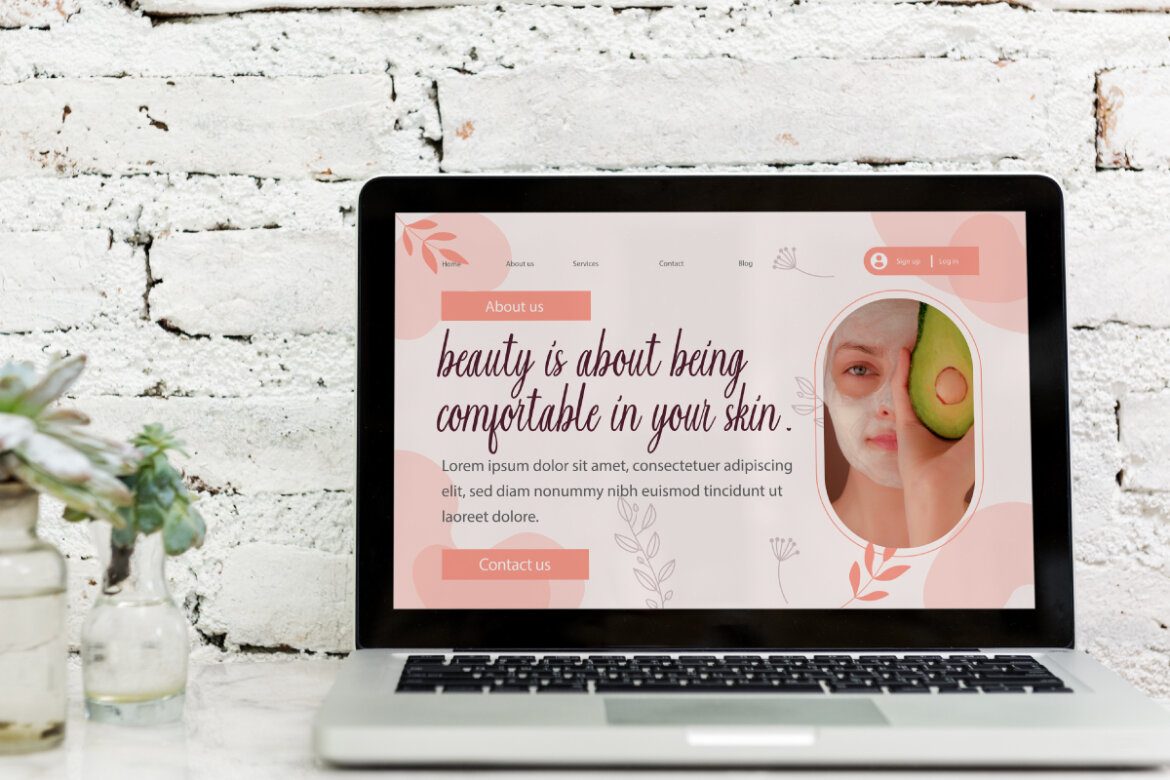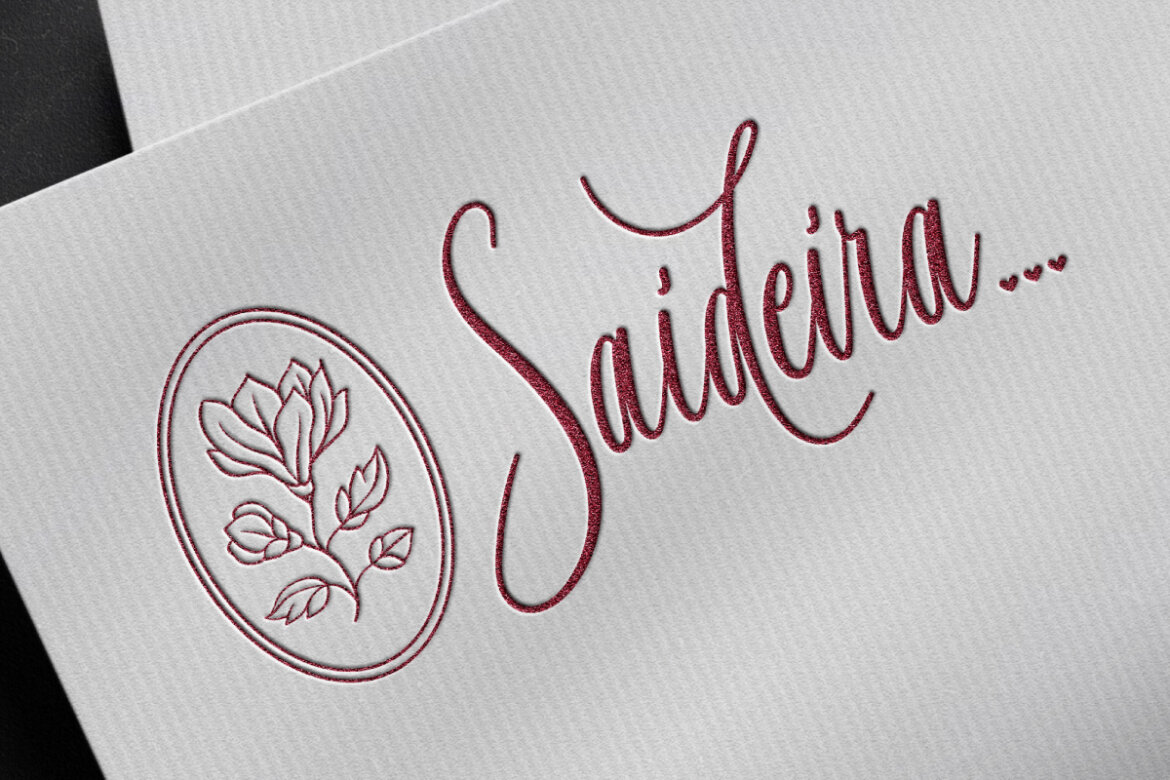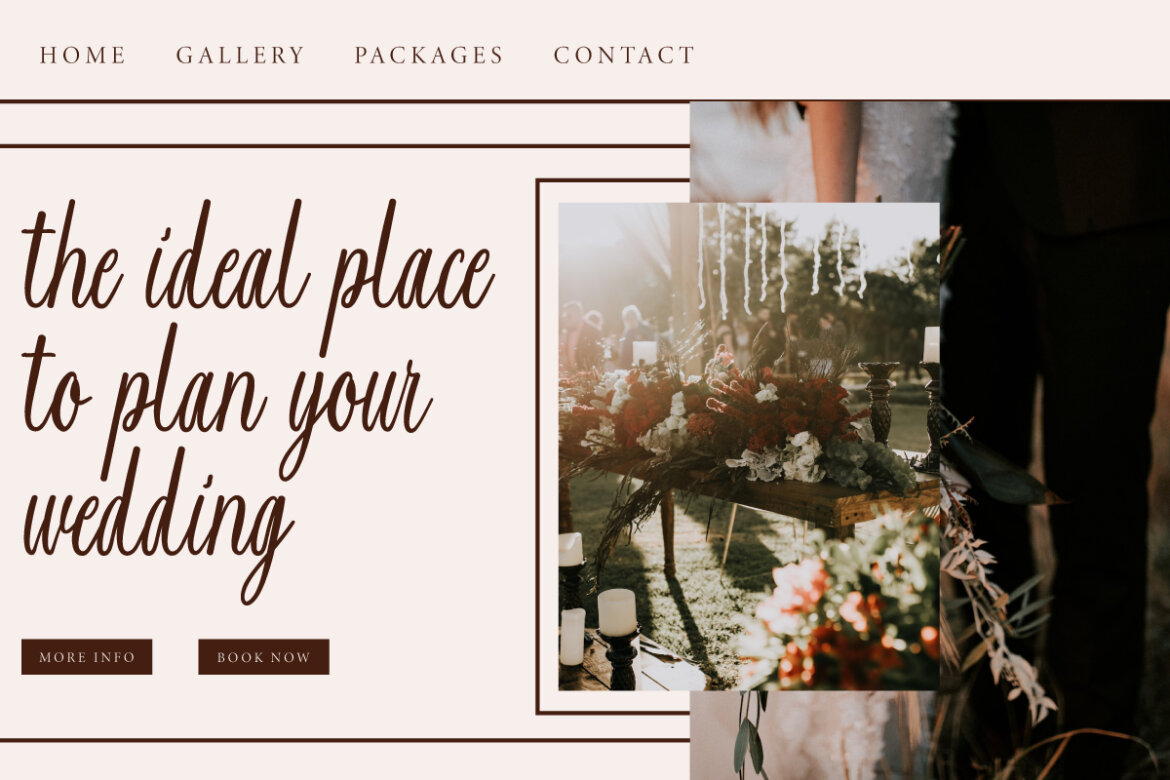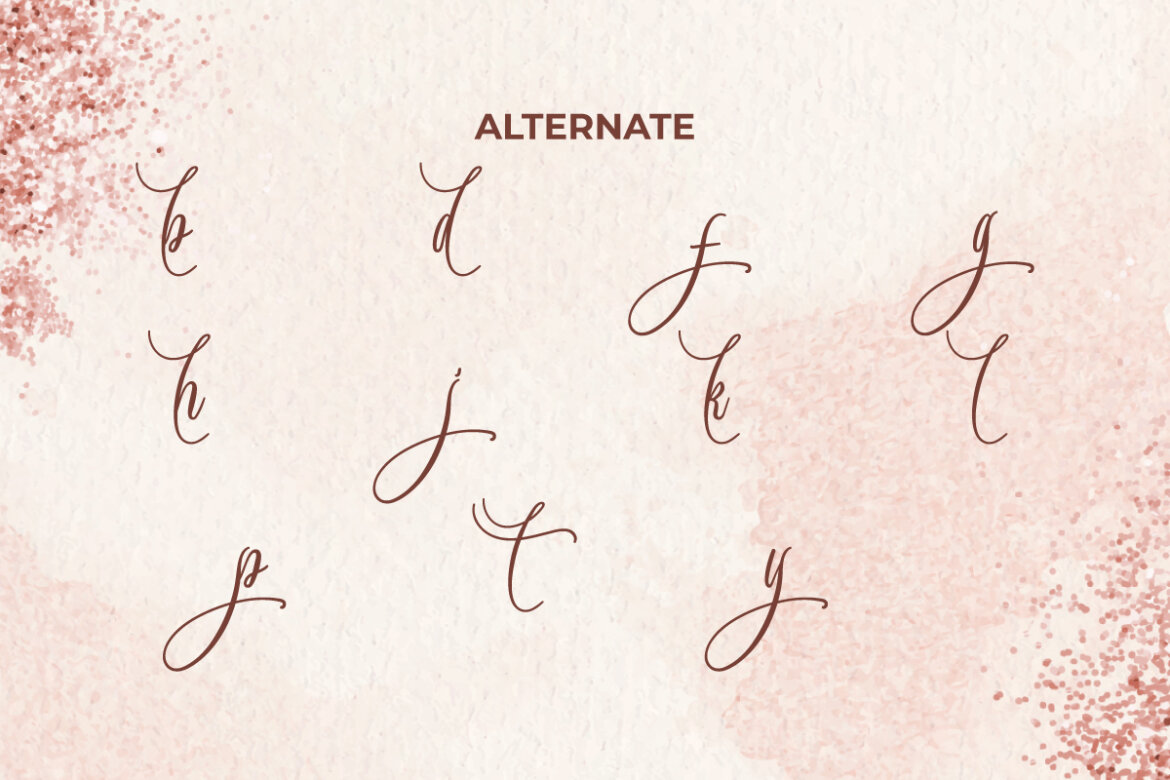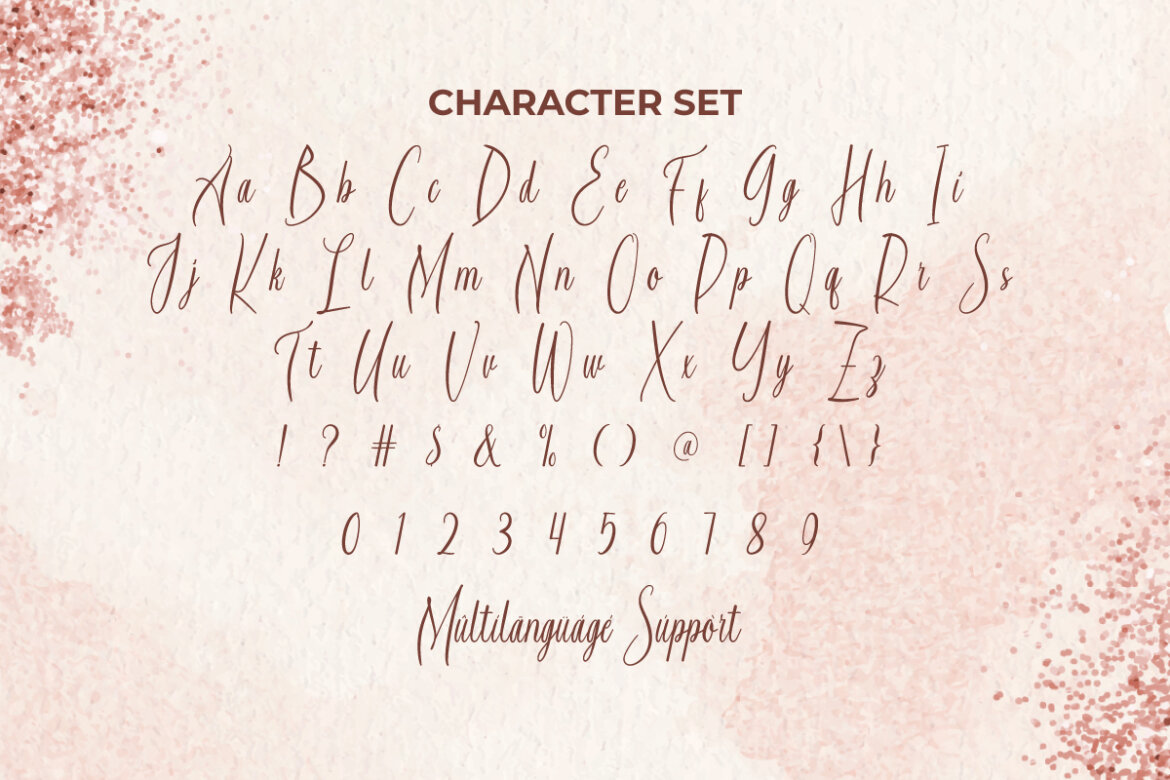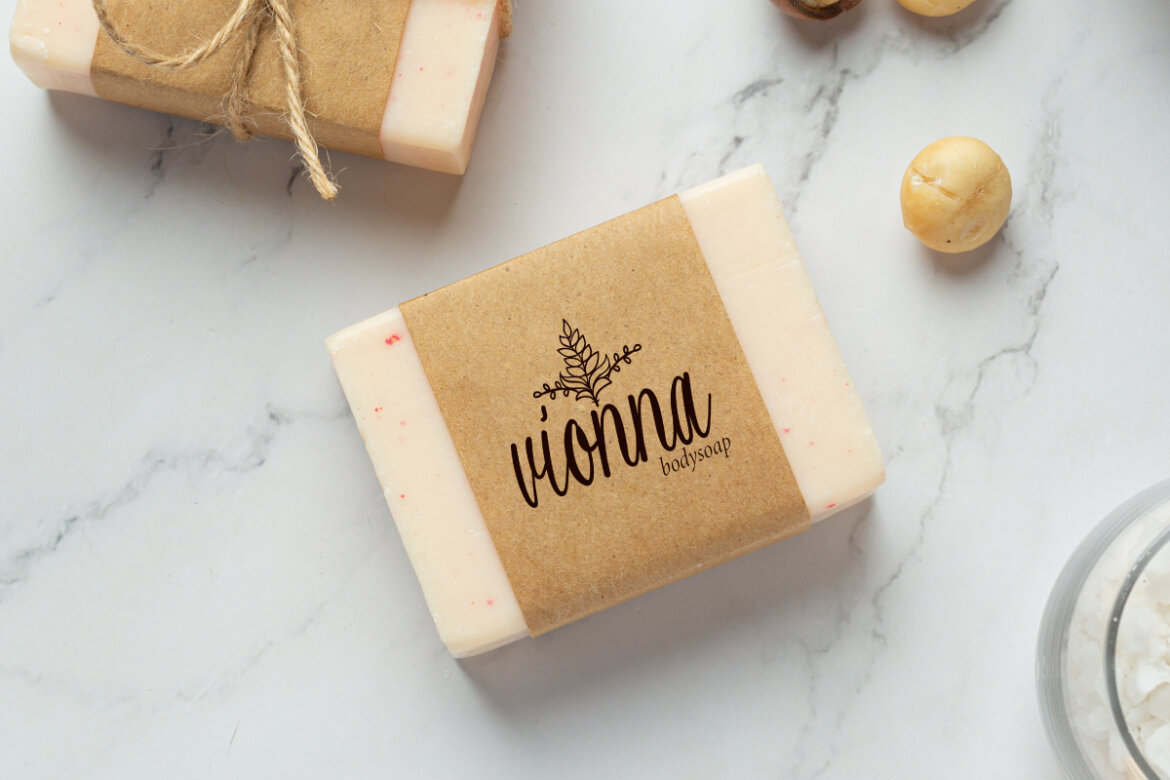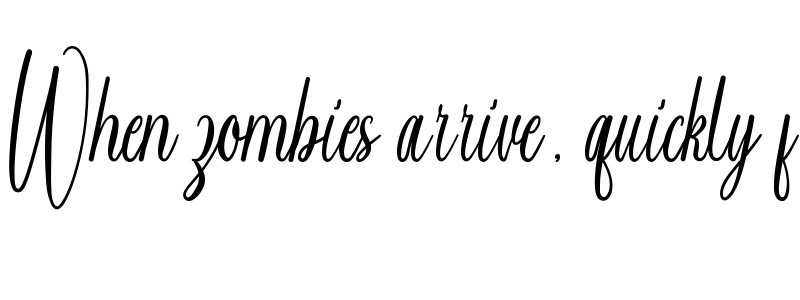
Saideira FREE Font
Saideira
Saideira Font is an truly elegant modern script font that looks natural and simple with beautiful ligature and alternate characters for your next design project. Create art posters, brand identity, brochure, cards, invitations, label, logos, menu, mockup designs, product packaging, quotes, stationery, sticker, template, title, watermarks, websites, and much more.
Saideira Font was created specifically to support and add to your font collection in your creativity. This font is basically inspired by beautiful and gentle calligraphy typography. It’s perfect for boutique, clothing brand, cosmetic, florist, homeware, jewelry, photography, skincare, spa salon, wedding, and whatever project requires a classy script touch.
Saideira Font comes with a full set of Uppercase and Lowercase Basic Characters, Number, a large range of Punctuation and Symbol. Also equipped with Ligature and Alternate characters which will raise your artistic designs to a higher level. It supports multilingual characters and ready to use both on Windows machine or Mac with simple installations. It’s tested to work well in the Adobe Apps (Illustrator, Adobe InDesign, Adobe Photoshop) CorelDraw, and others. PUA Encode Characters means you can access all the characters easily – Fully accessible without additional design software.